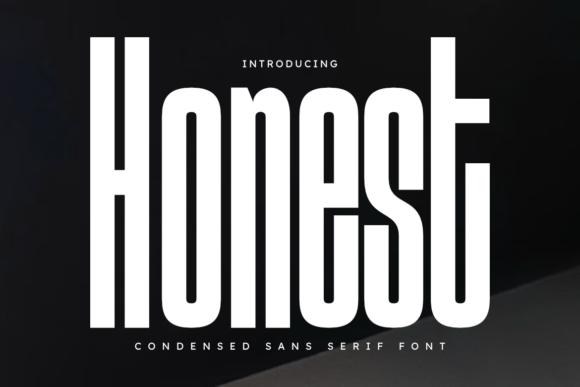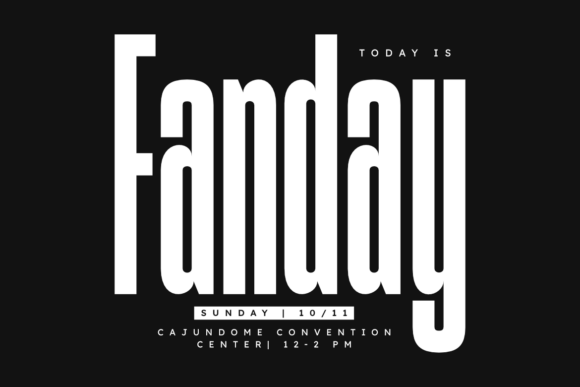
Honest Font
Honest is a tall and sleek condensed sans serif font designed for a modern and confident look. Its bold vertical structure and clean lines make it perfect for magazine titles, posters, branding, logos, packaging, and headlines that need a strong visual presence. Ideal for both minimal and luxury-themed designs, HONEST delivers elegance and impact in every composition.